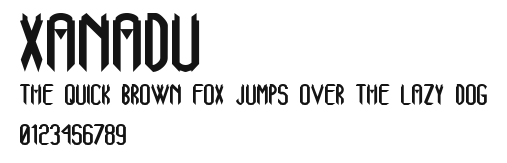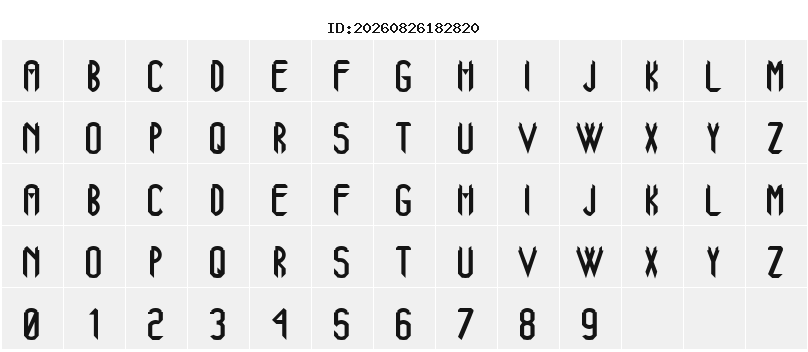
• Font Name: Xanadu
• Full Font Name: Xanadu
• Copyright: Copyright 1998 Lisa D. Jenkins; based on "Xanadu" from the Universal motion picture (1980).
About Xanadu.ttf
Xanadu.ttf is a modern, elegant sans-serif font designed for ultimate readability and visual harmony. Perfect for branding, headlines, web design, and print materials.